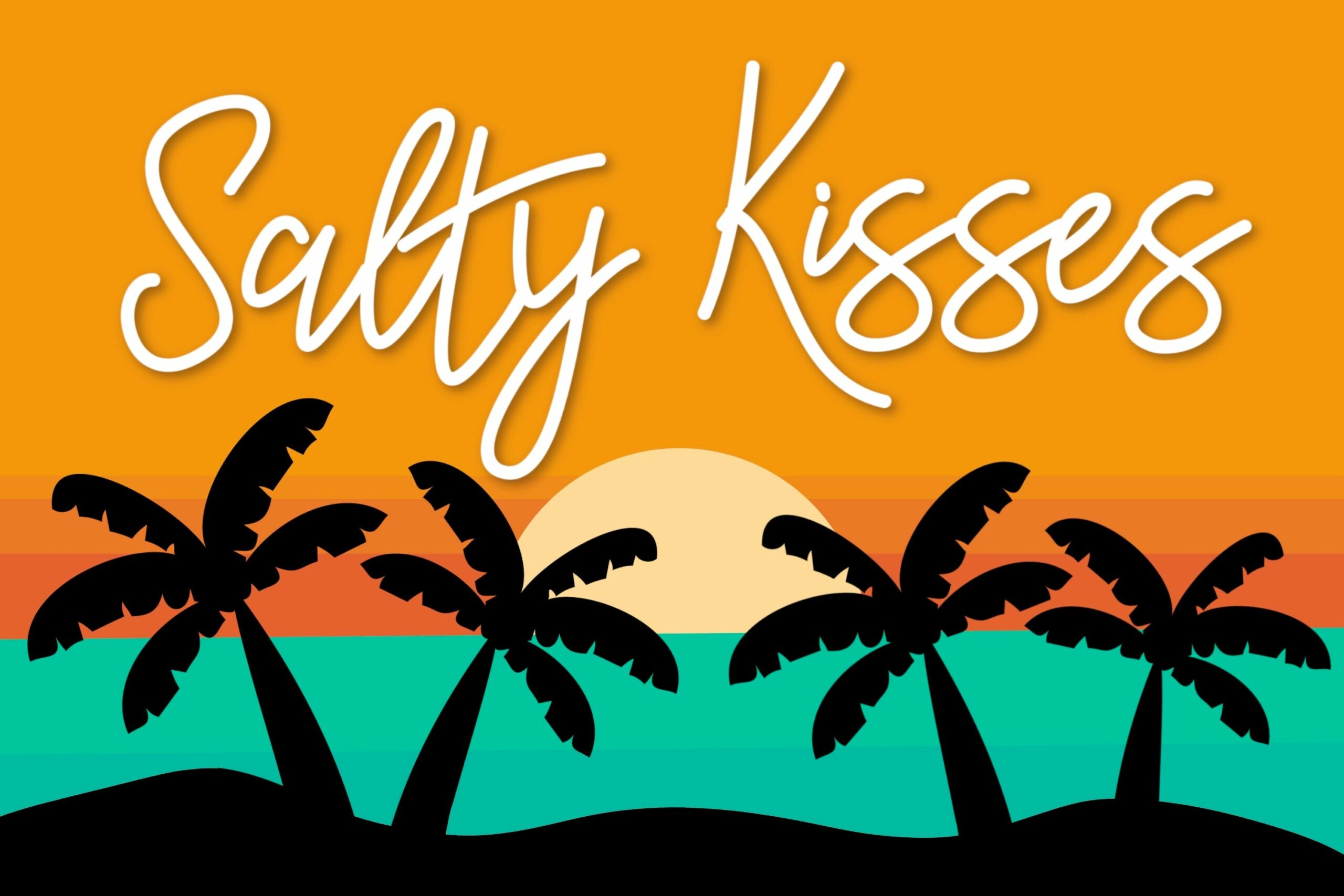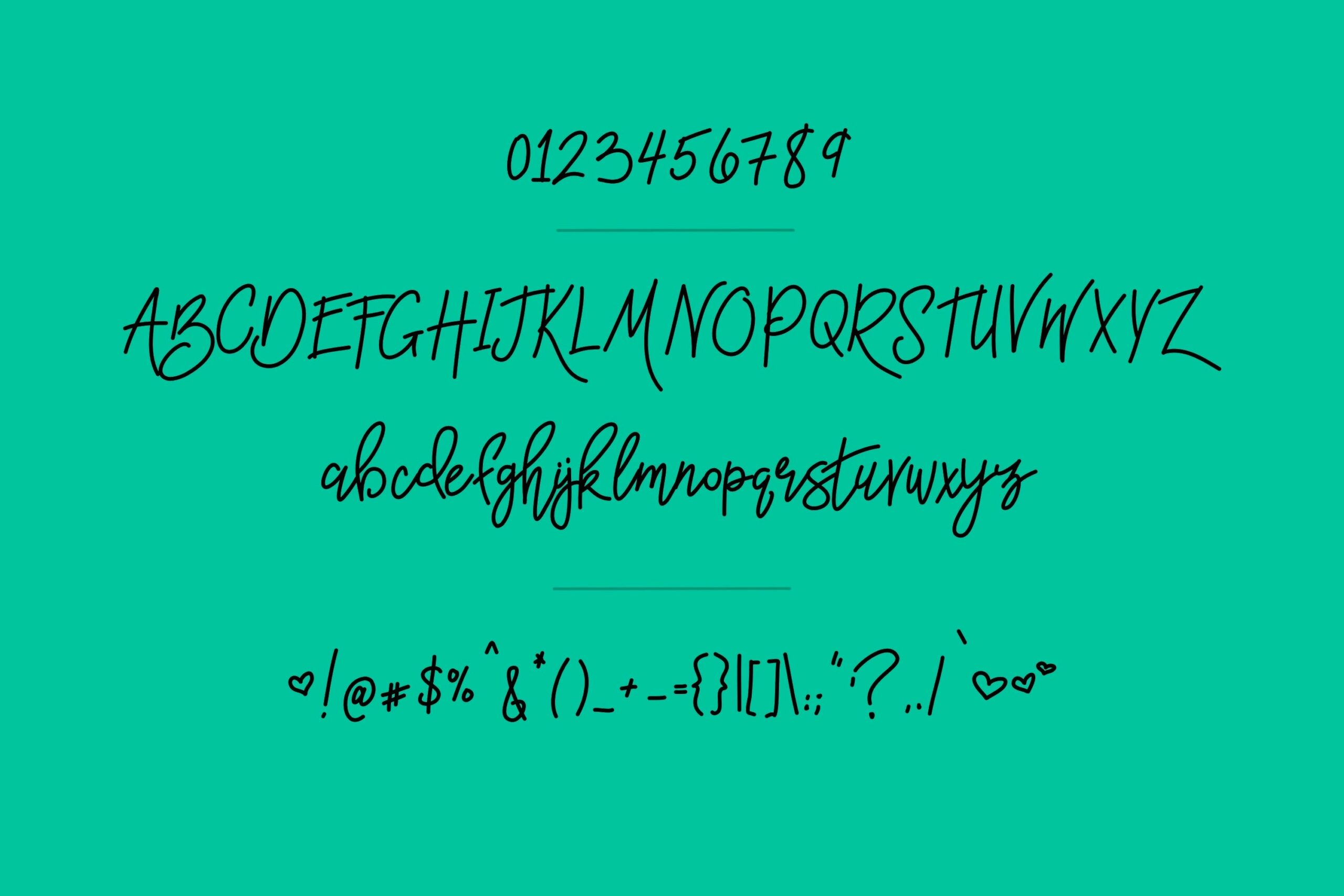
HomeScript FontsSalty Kisses Script Fonts Salty Kisses FacebookXPinterestWhatsApp 1 of 2 ... ... About Salty Kisses is a bouncy, monoline script font perfect for any project. DOWNLOAD NOW People also explored Autumn Script Font Halted Font Gagego Font Spring Summer Boho Coffee Mug Mock Up Camden Font Sword Knights Font Daddy Pride Font Spooky Adventure Font Autumn Season Font 261 0 TagsSalty Kisses Previous articleVine FontNext articleMermaid Tails LEAVE A REPLY Cancel reply Comment: Please enter your comment! Name:* Please enter your name here Email:* You have entered an incorrect email address! Please enter your email address here Website: Save my name, email, and website in this browser for the next time I comment. Personal Use Free Hatia Script Personal Use Free Read more about this font Theobald Personal Use Free Read more about this font Clarisa Script Personal Use Free Read more about this font Trio Personal Use Free Read more about this font BLOG Transform Your Website: Elevate Your Typography with 7 Best Web Font Generators Are you ready to transform your website's typography from ordinary to extraordinary? Great! Today, we're diving into the world of web font generators, which... Top 10 Handwritten Fonts That Elevate Your Designs Free Fonts Risk: Why Free Fonts Can Be Dangerous for Designers The 10 Best Handwriting Fonts to Add Personality to Your Designs